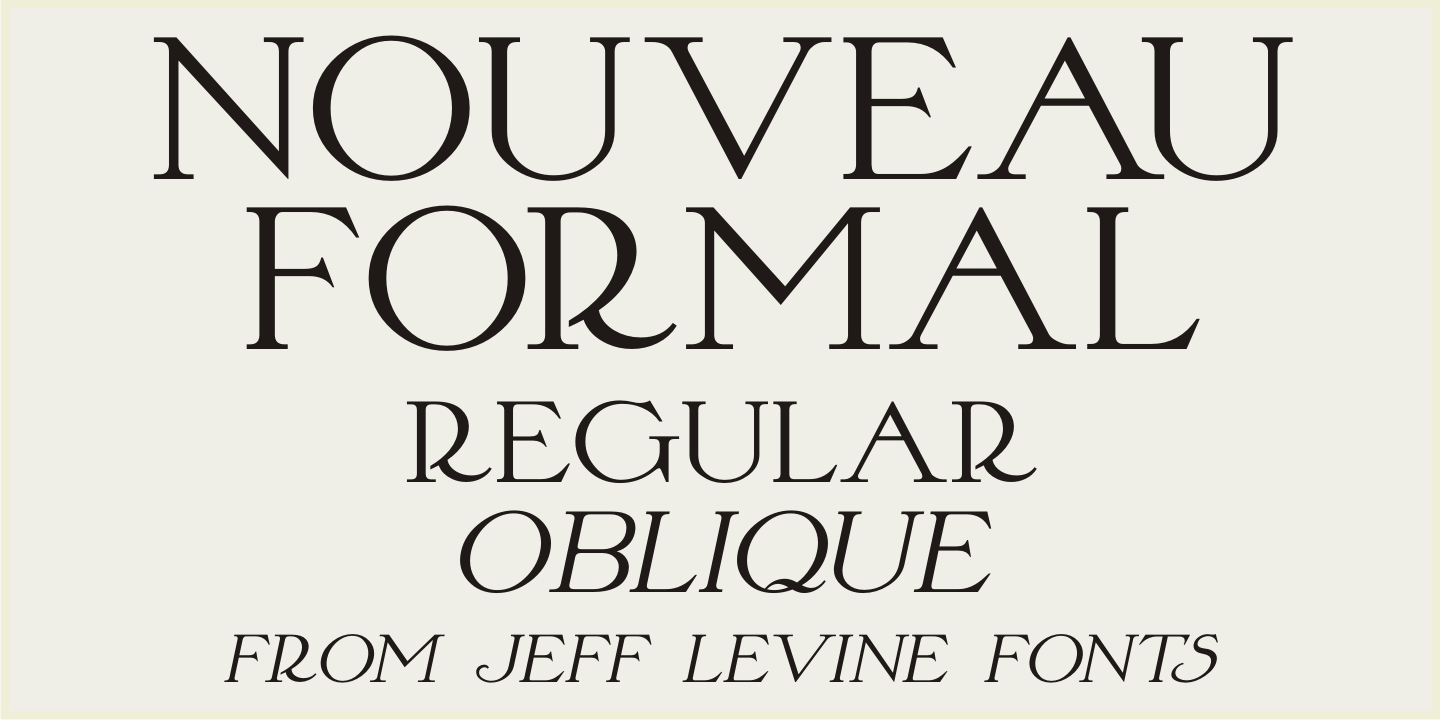
The Nouveau Formal JNL Font Free Download is ideal for vintage-inspired posters, luxury branding, book covers, and editorial layouts, adding a refined, classic flair.
This font is exciting because its Art Nouveau-inspired elegance and intricate details evoke timeless sophistication, perfect for standout designs.
The Nouveau Formal JNL family includes Regular, Bold, and Oblique variants, offering flexibility for various creative projects.
Transform your designs with the Nouveau Formal JNL Font Free Download, a typeface that blends vintage charm with modern precision. Perfect for creating elegant headlines or ornate logos, this font captures the essence of early 20th-century artistry. Its distinctive curves and decorative elements make it a top choice for designers crafting high-end branding or nostalgic print materials. The Nouveau Formal JNL shines in both digital and print formats, ensuring crisp clarity across platforms. As design trends in 2025 lean toward retro aesthetics, downloading Nouveau Formal JNL Font Free Download keeps you ahead of the curve. Test it now to explore its potential, and consider purchasing for commercial use to fully leverage its unique style in your next project.